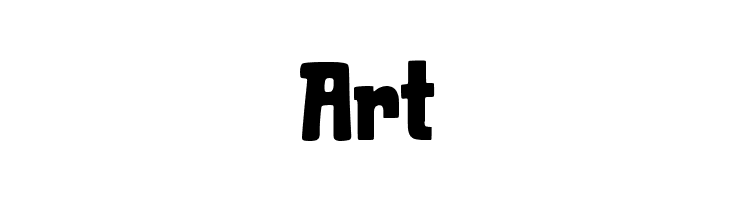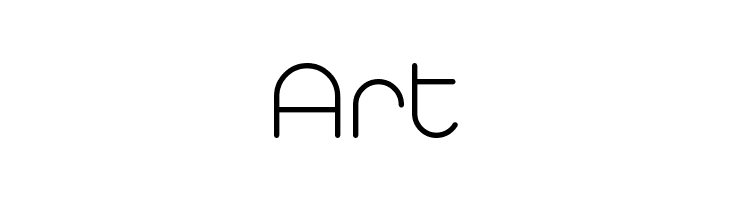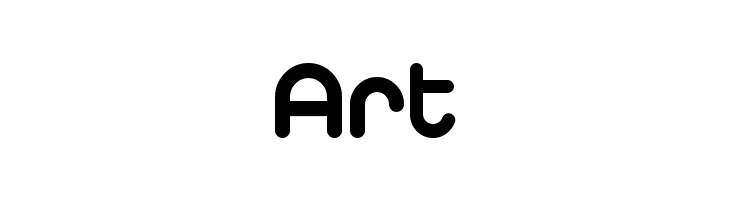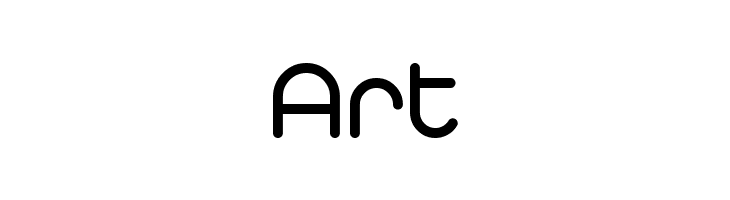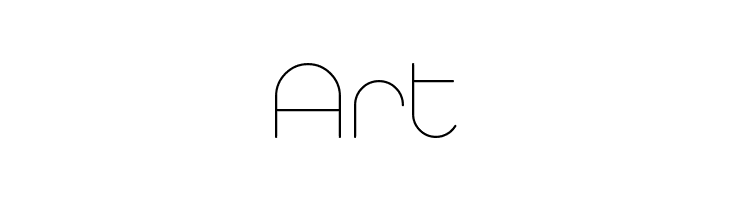
Typo Hoop Demo Bold Font
A bold, rounded font with smooth curves and a modern, playful style.
Typo Hoop Demo Font
A modern, rounded sans-serif font with a clean and minimalistic style.
Typo Hoop Light Demo Font
A modern, geometric font with rounded edges and balanced spacing.
Typo Hoop Inline Demo Font
A bold, inline font with rounded edges and a modern, playful style.
Typo Hoop Hairline Demo Font
A minimalist, geometric font with thin, consistent strokes for a modern look.
Hoops! Font
A playful, bold font with rounded edges and a hand-drawn feel.
Hooper dooper Font
A bold, playful font with rounded, thick characters and a modern flair.
Snail Font
A bold, geometric font with playful circular cutouts and a modern art deco style.
Leona Font
A modern, geometric font with clean lines and a minimalist aesthetic.
Hula Hoop Girl Condensed Ital Font
A bold, condensed, and italic font with rounded edges and a modern look.
Hula Hoop Girl Font
A bold, rounded font with a playful and chunky style.
Hula Hoop Girl Super-Italic Font
A bold, italicized font with a dynamic and playful style.
Hula Hoop Girl Outline Italic Font
A playful, rounded outline font with an italic slant and bold, bubble-like contours.
Hula Hoop Girl Expanded Italic Font
A bold, expanded, and italicized font with a playful, retro-modern style.
Hula Hoop Girl Expanded Font
A bold, rounded font with a playful and energetic style.
Hula Hoop Girl Bold Outline Font
A bold, outlined font with rounded, playful characters.
Hula Hoop Girl Gradient Italic Font
A bold, italicized font with a gradient effect and dynamic horizontal lines.
Hula Hoop Girl Semi-Italic Font
A bold, playful font with rounded edges and a semi-italic slant.
Hula Hoop Girl Halftone Italic Font
A bold, italicized font with a halftone effect and futuristic style.